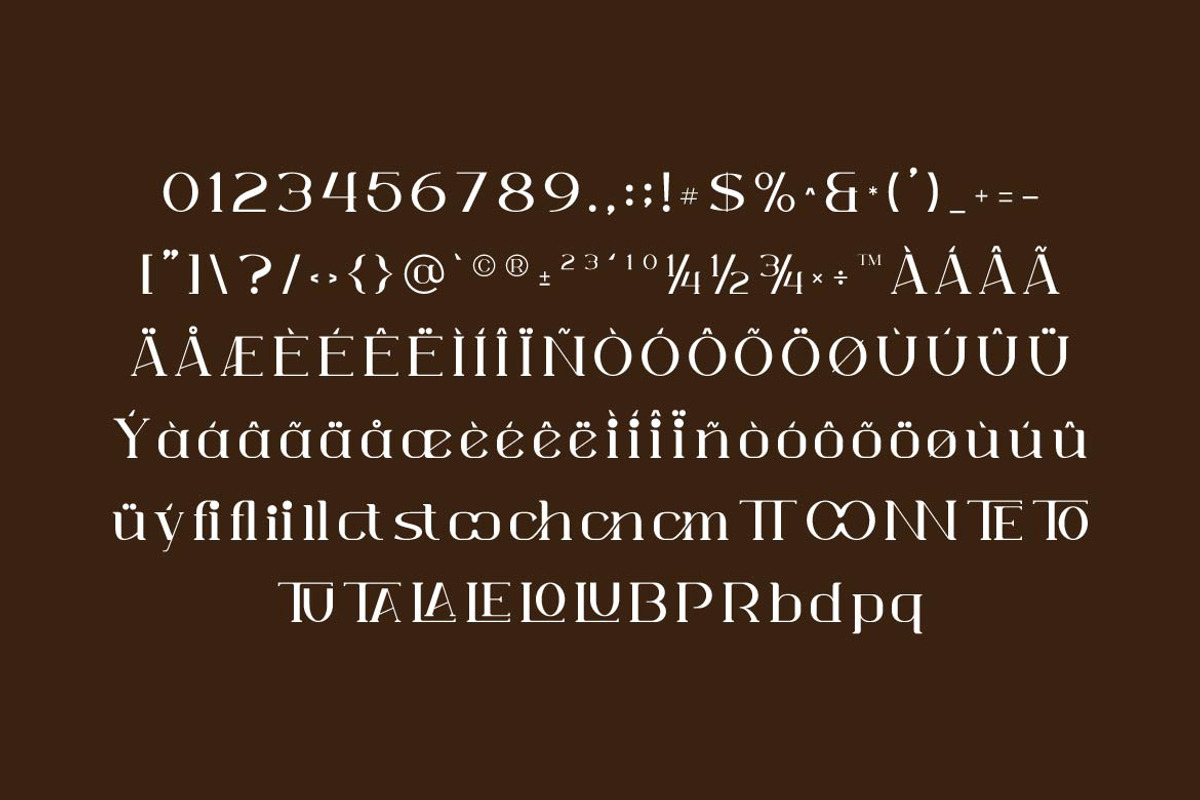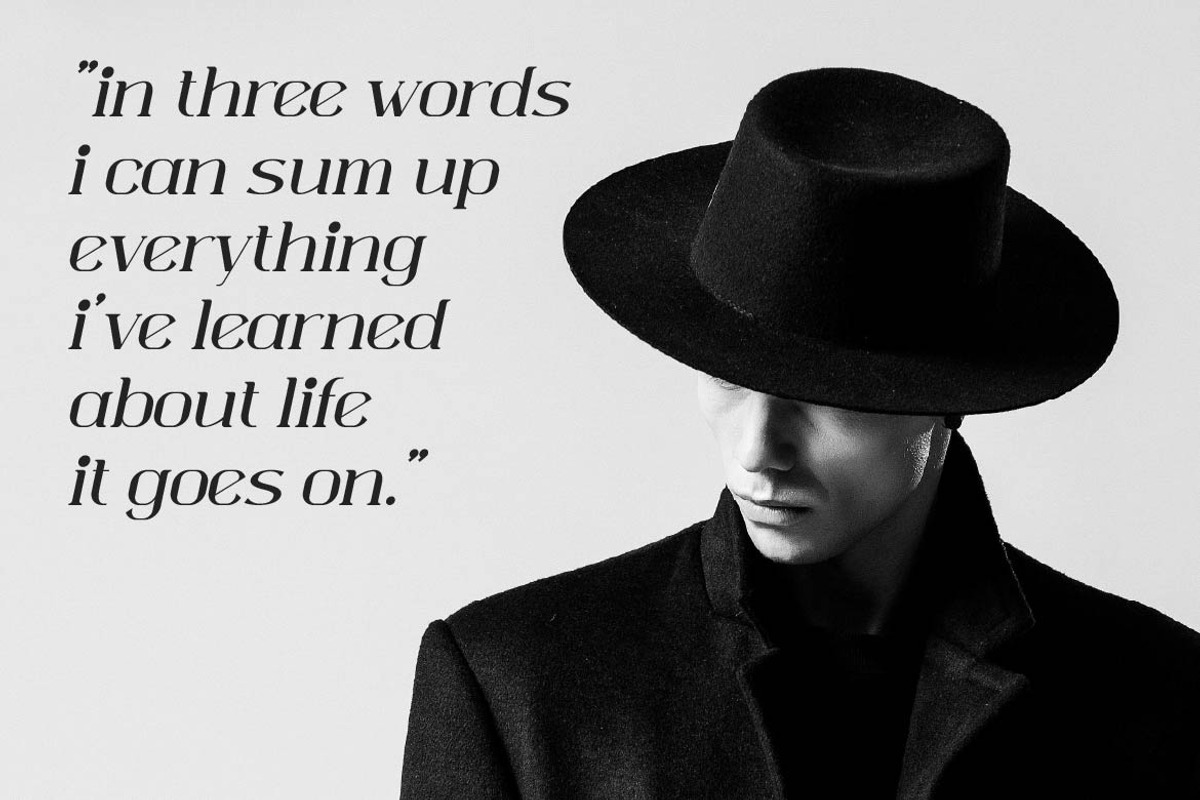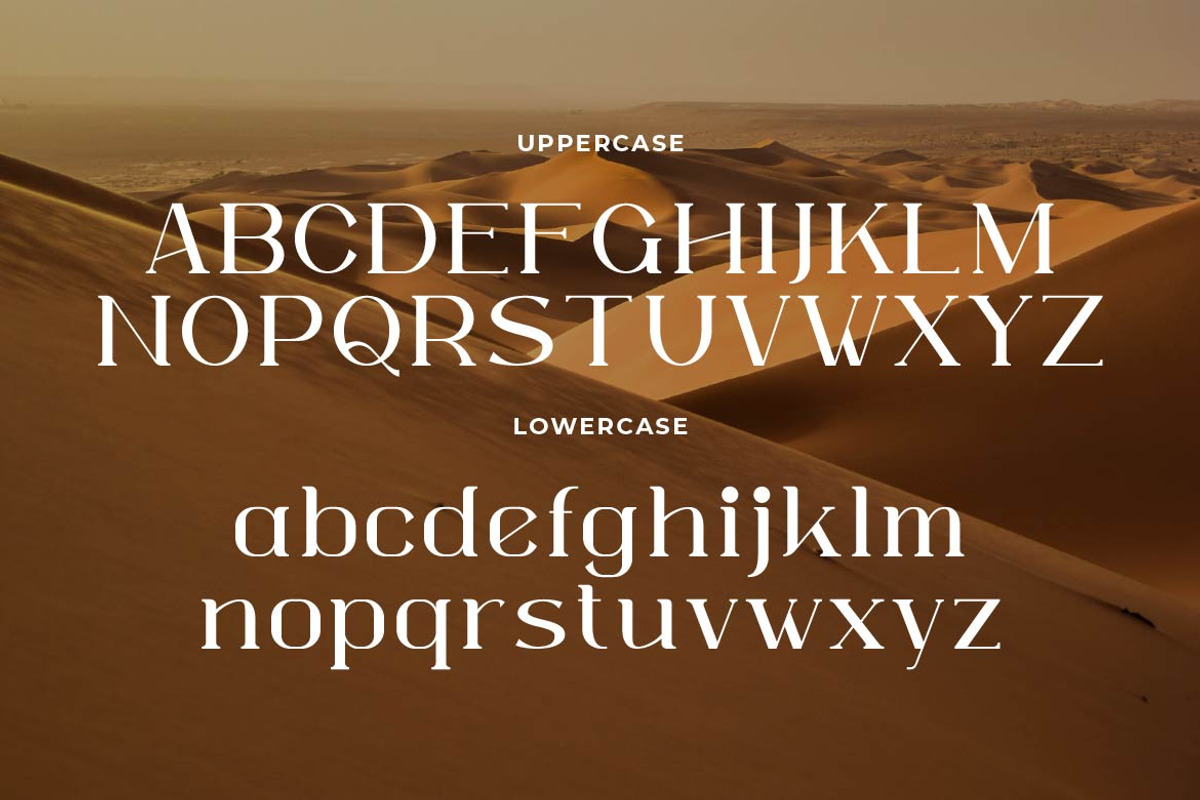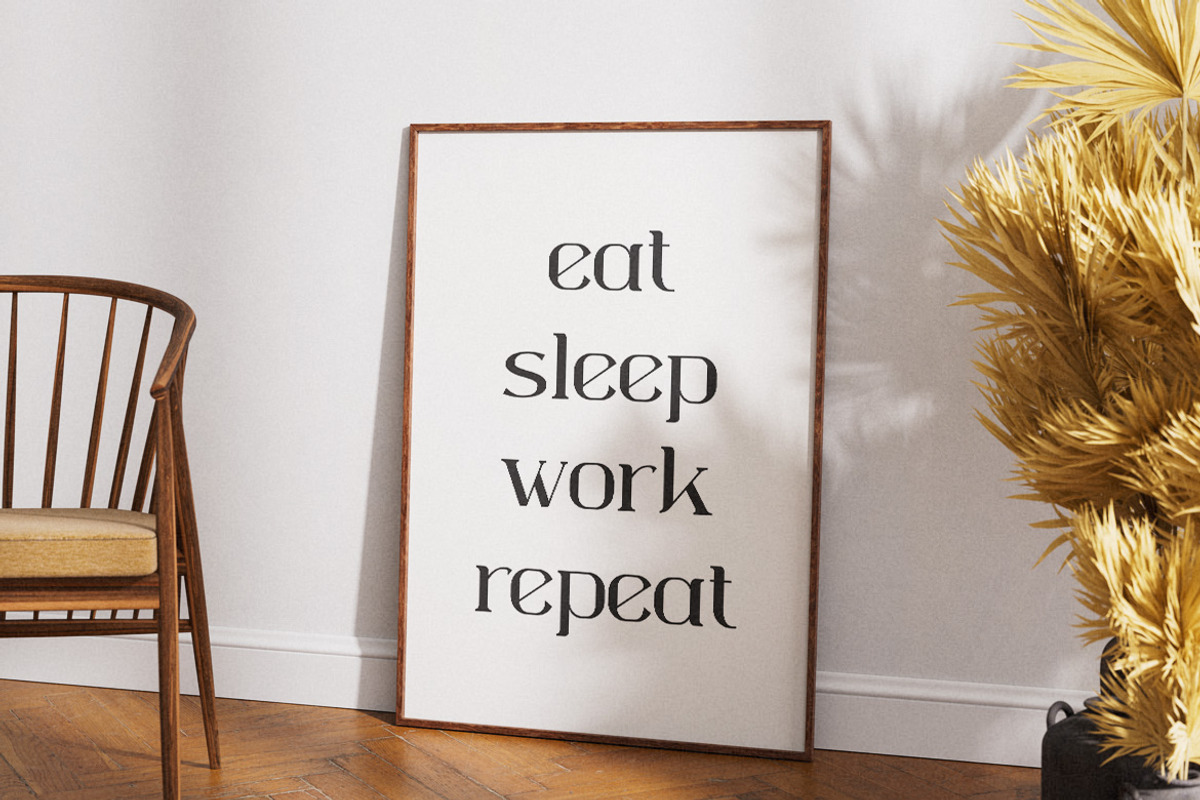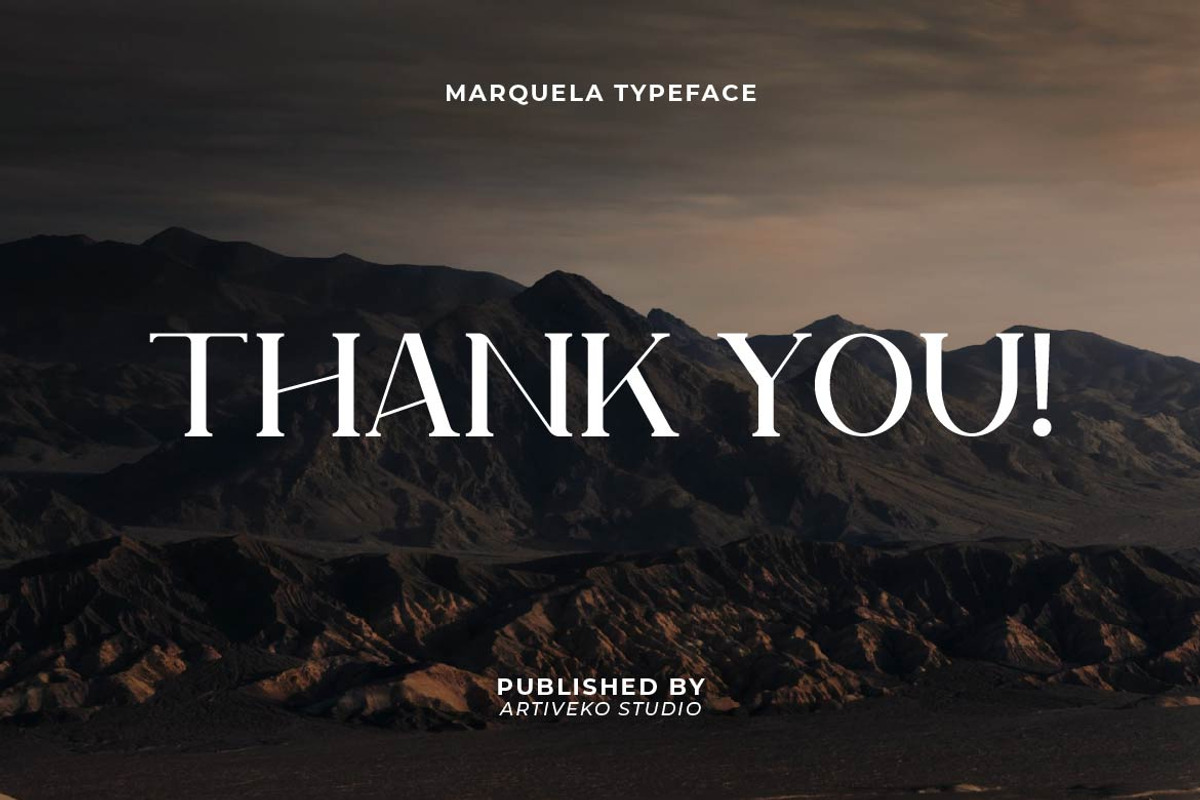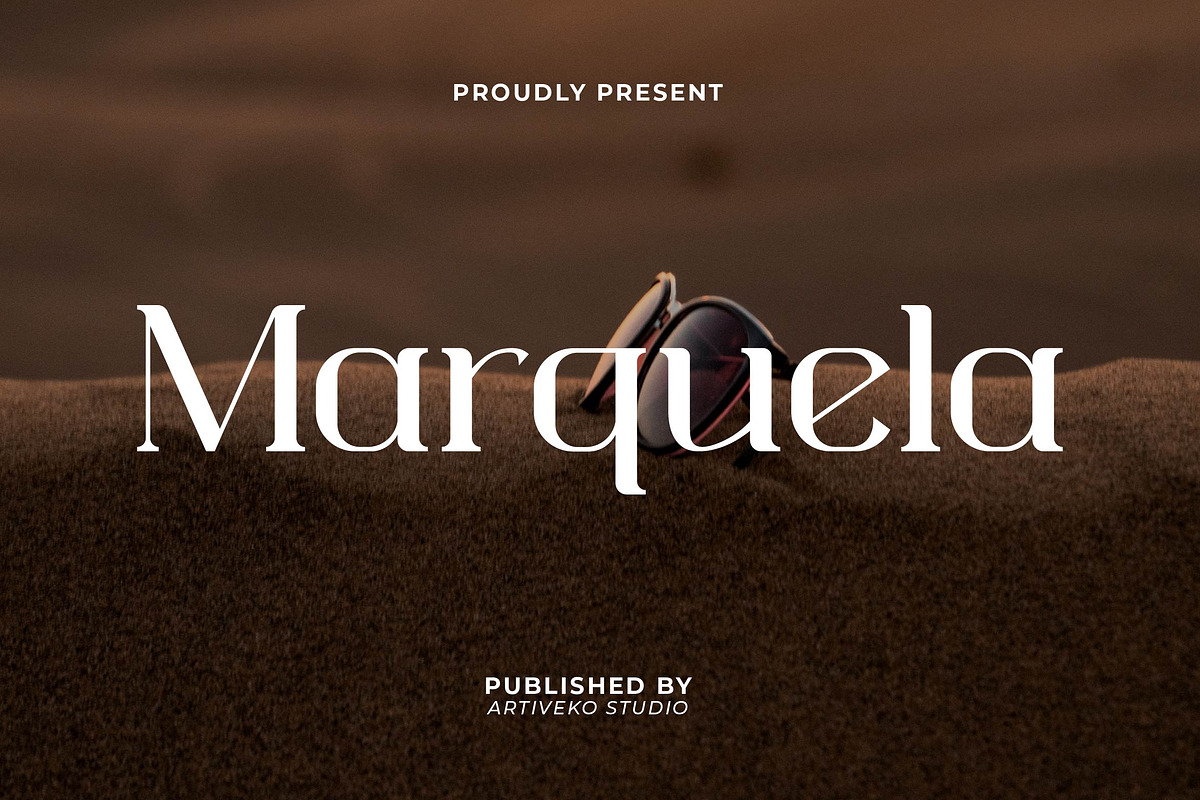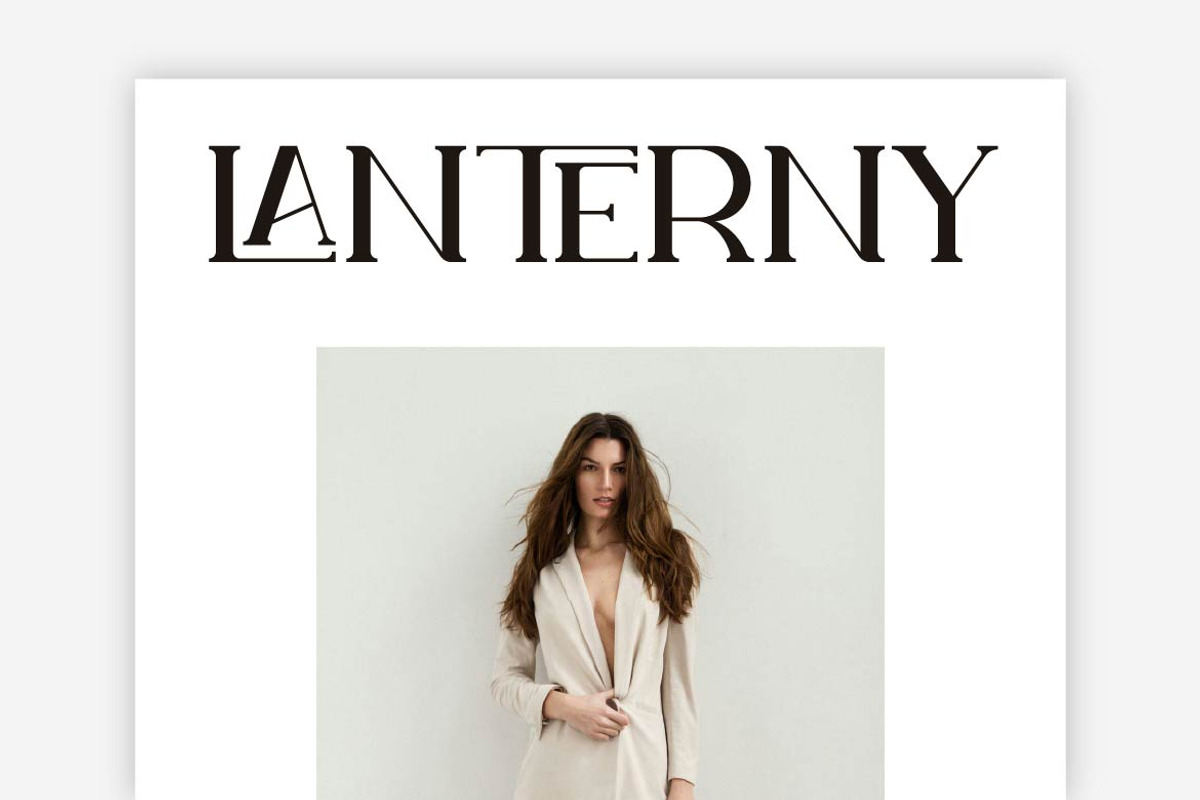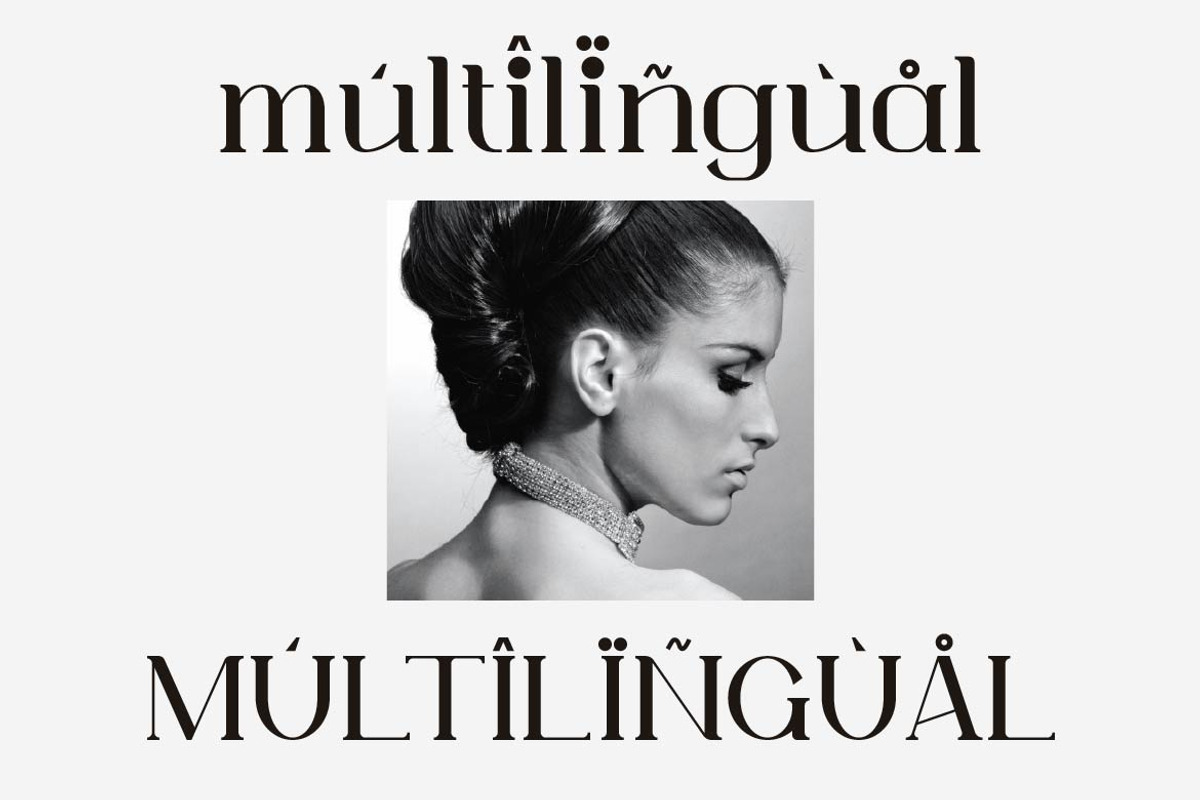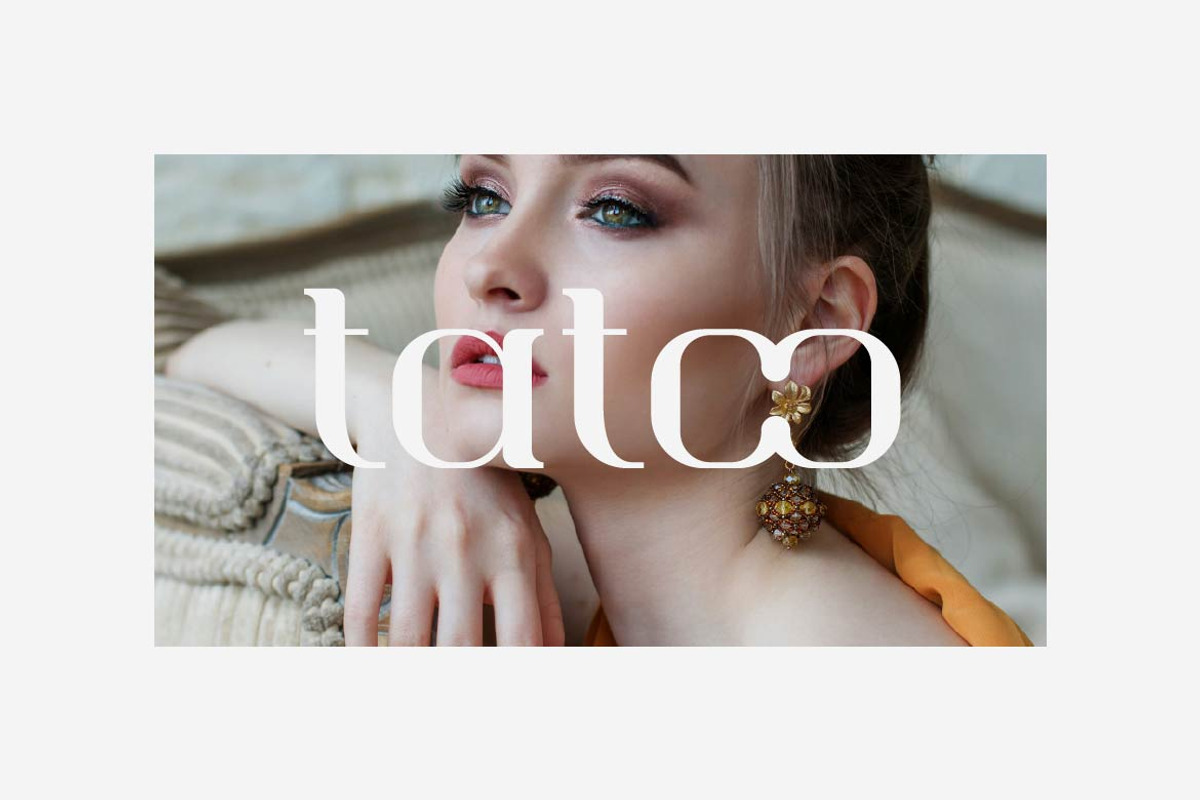
Marquela Elegant Serif
Marquela is a refined serif font that combines classic beauty with modern elegance. Featuring sharp serifs, graceful curves, and balanced proportions, Marquela exudes luxury and professionalism, making it perfect for high-end branding, editorial layouts, fashion lookbooks, packaging, and wedding invitations.